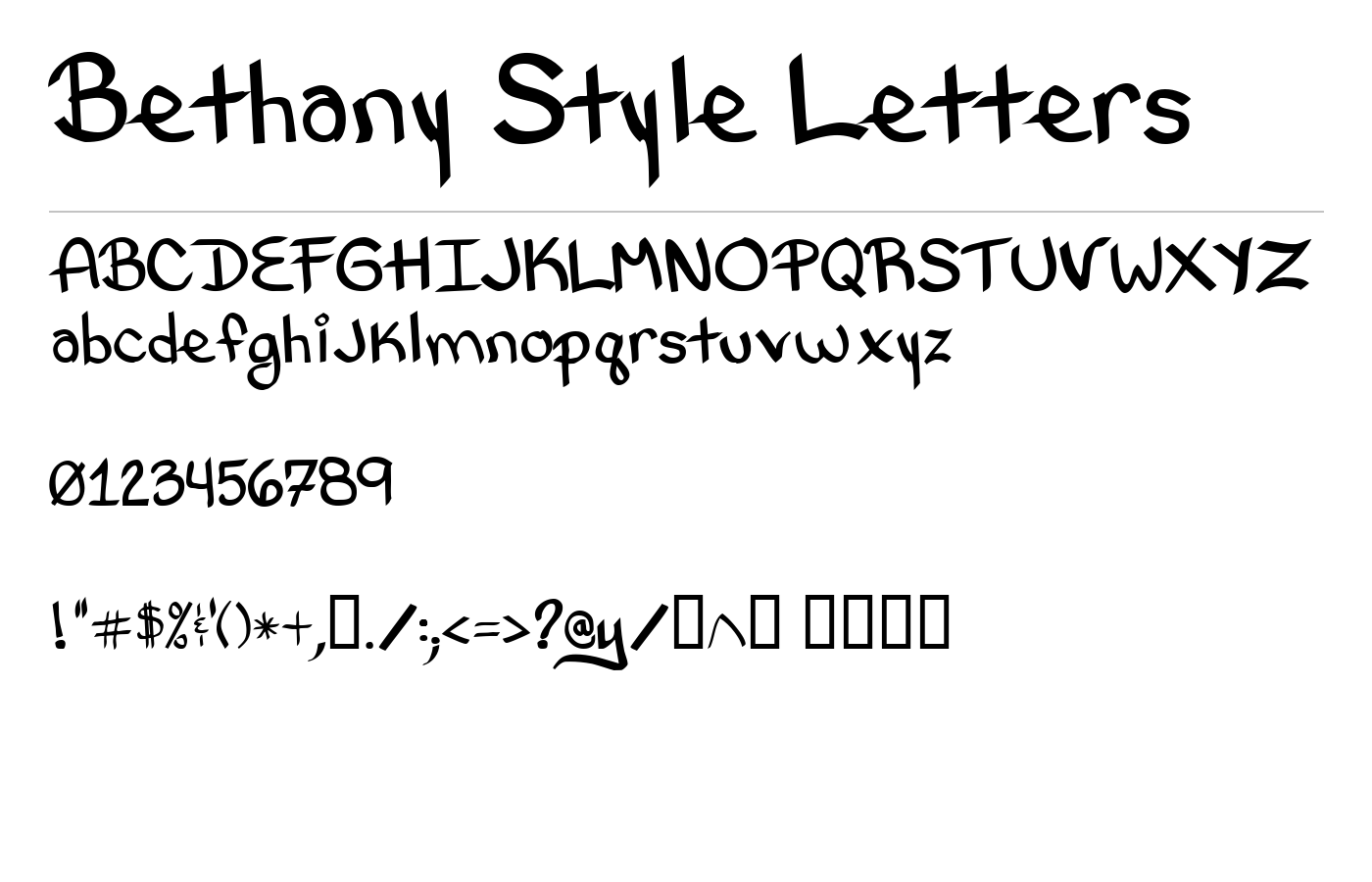
Bethany Style Letters is a playful and casual handwritten font with a lively, quirky character. Its irregular strokes and unique letter shapes give it an informal and friendly feel, making it ideal for creative projects, children’s designs, and personal branding where a fun and approachable style is desired. This font works best in headlines, logos, or any setting that benefits from a distinctive, whimsical touch.
Bethany Style Letters Font
About Bethany Style Letters Font